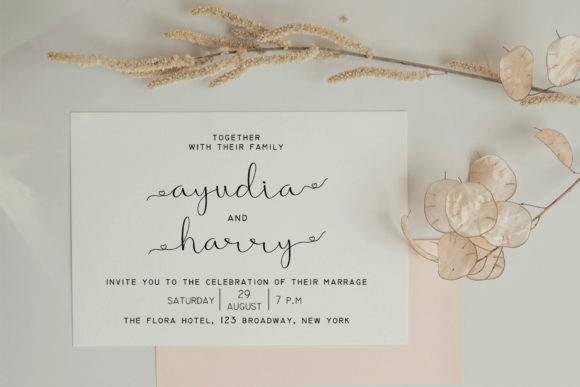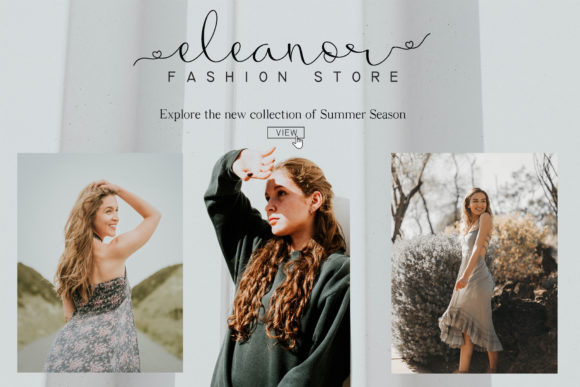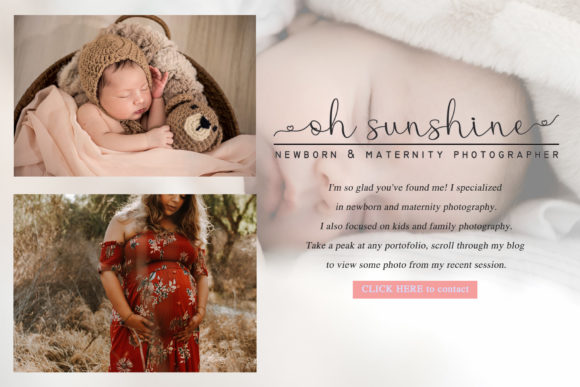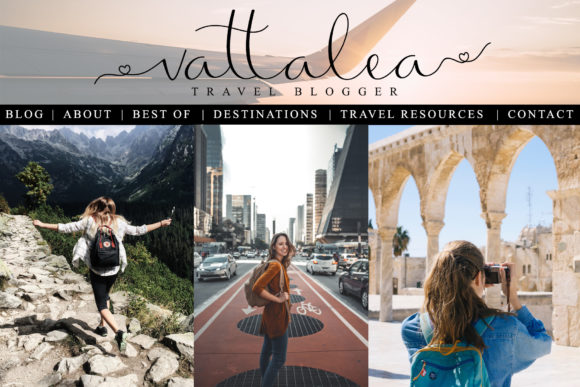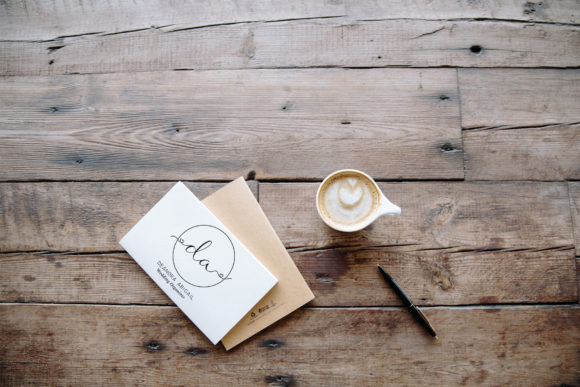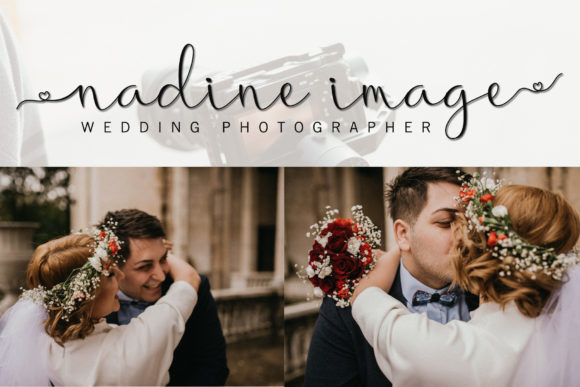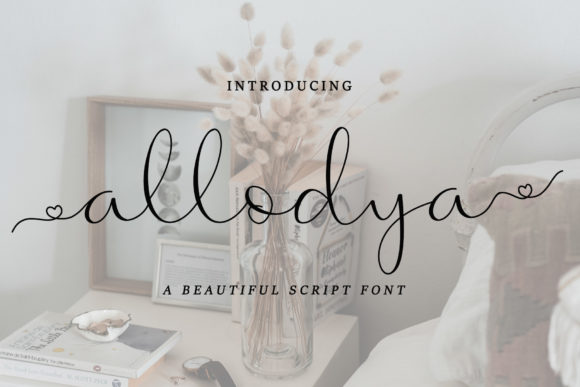
The Allodya Font: A Delicate, Elegant Companion for Your Creative Projects
I still remember the frustration of working on a design project, hours spent searching for the perfect font, only to end up with something that just didn’t feel right. My client wanted a elegant and flowing script font that would bring their brand to life, but everything I tried seemed either too bold, too bland, or just plain boring. That was until I stumbled upon the Allodya font. With its beautiful, well-balanced characters and gorgeous glyphs, it was like a breath of fresh air. In this article, I’ll share my experience with Allodya, its features, and how to make the most of it in your creative projects.
What I Love About Allodya
Allodya is more than just a pretty font; it’s a versatile tool that can elevate your designs. Here are some of the things that make it special:
- ✨ Delicate and elegant: Allodya’s flowing lines and smooth curves give it a sophisticated feel that’s perfect for a wide range of designs.
- ✅ Well-balanced characters: Each letter is carefully crafted to ensure that the font looks great in any context.
- 🌈 Varying baseline: This feature adds a touch of organic charm to your text, making it feel more natural and human.
- 🔍 Gorgeous glyphs and stunning alternates: With a wide range of glyphs and alternates, you can add visual interest and personality to your text.
While Allodya is an amazing font, it’s not perfect. Here are a few things to keep in mind:
- ⚠️ Limited use in very small sizes: Due to its elegant and delicate nature, Allodya might not be the best choice for very small font sizes or body text.
- 🤔 Some characters may require manual adjustment: Depending on the context, you might need to tweak some characters to get the perfect look.
The Story Behind Allodya
Allodya was designed with the intention of creating a font that would bring a touch of elegance and sophistication to any design. The designer aimed to craft a font that would be both beautiful and versatile, with a range of features that would make it suitable for a wide range of projects. While the exact story behind Allodya might be unknown, it’s clear that the font was created with a passion for typography and a desire to help designers create stunning work.
| What makes Allodya suitable for a wide range of designs? | Allodya’s well-balanced characters, varying baseline, and gorgeous glyphs make it versatile and adaptable to different design contexts. |
| Is Allodya suitable for body text or small font sizes? | While Allodya is beautiful, it might not be the best choice for very small font sizes or body text due to its delicate and elegant nature. |